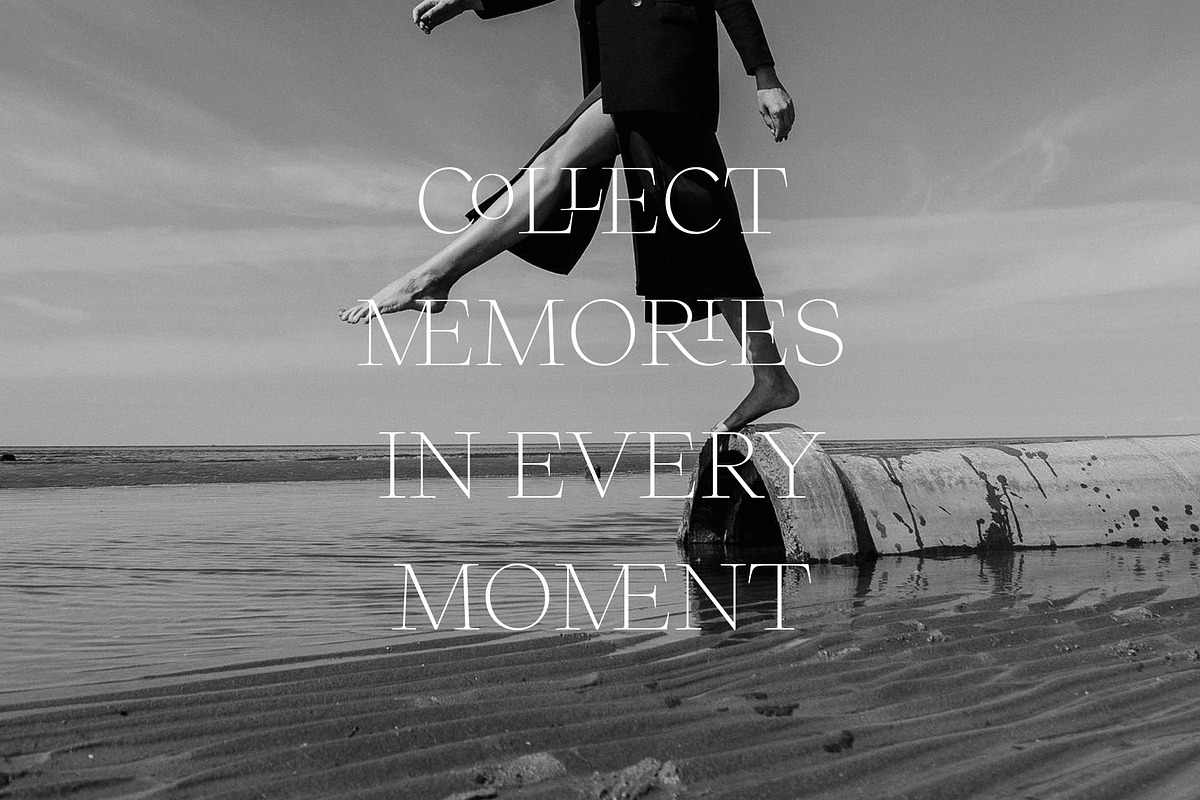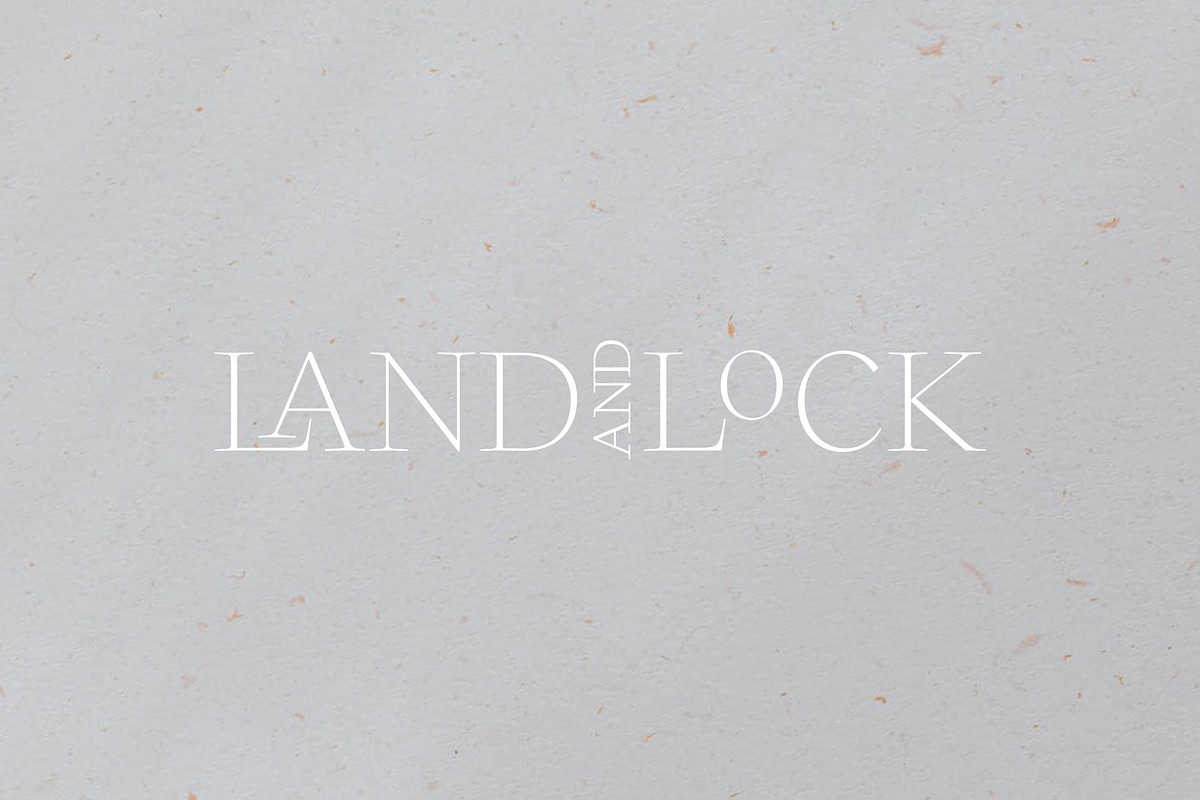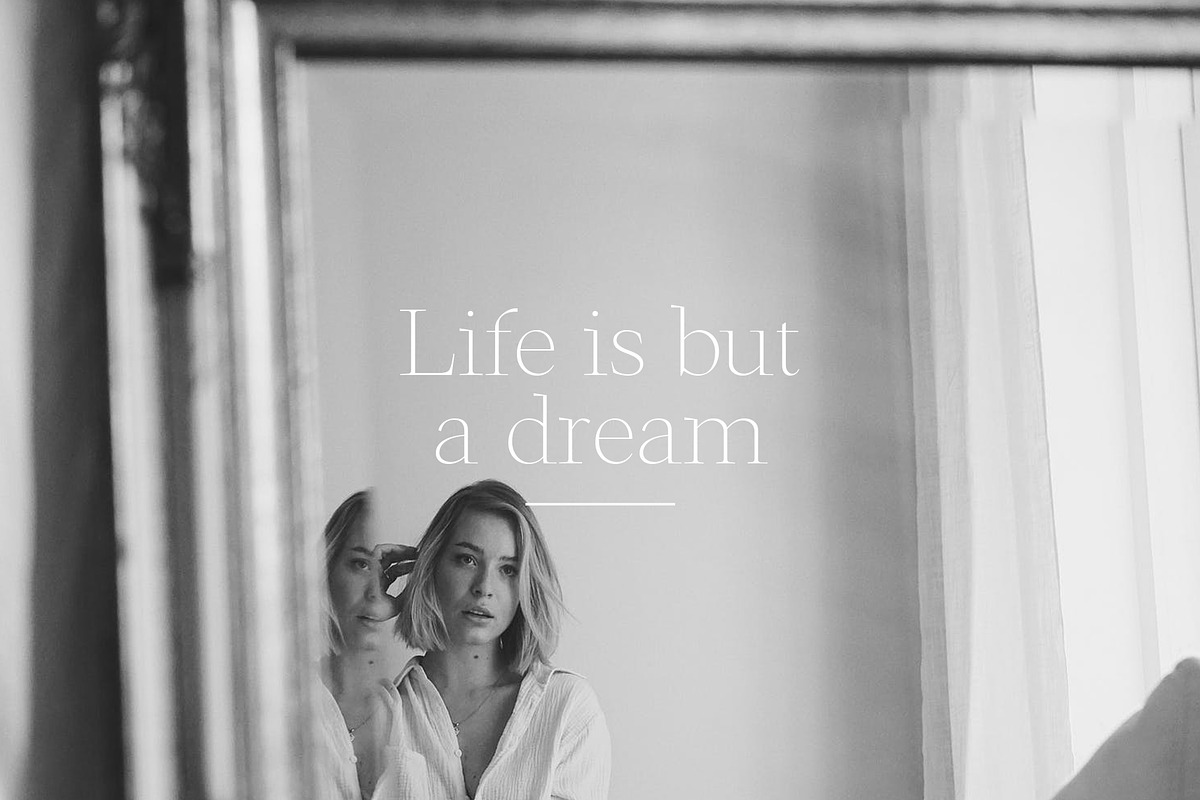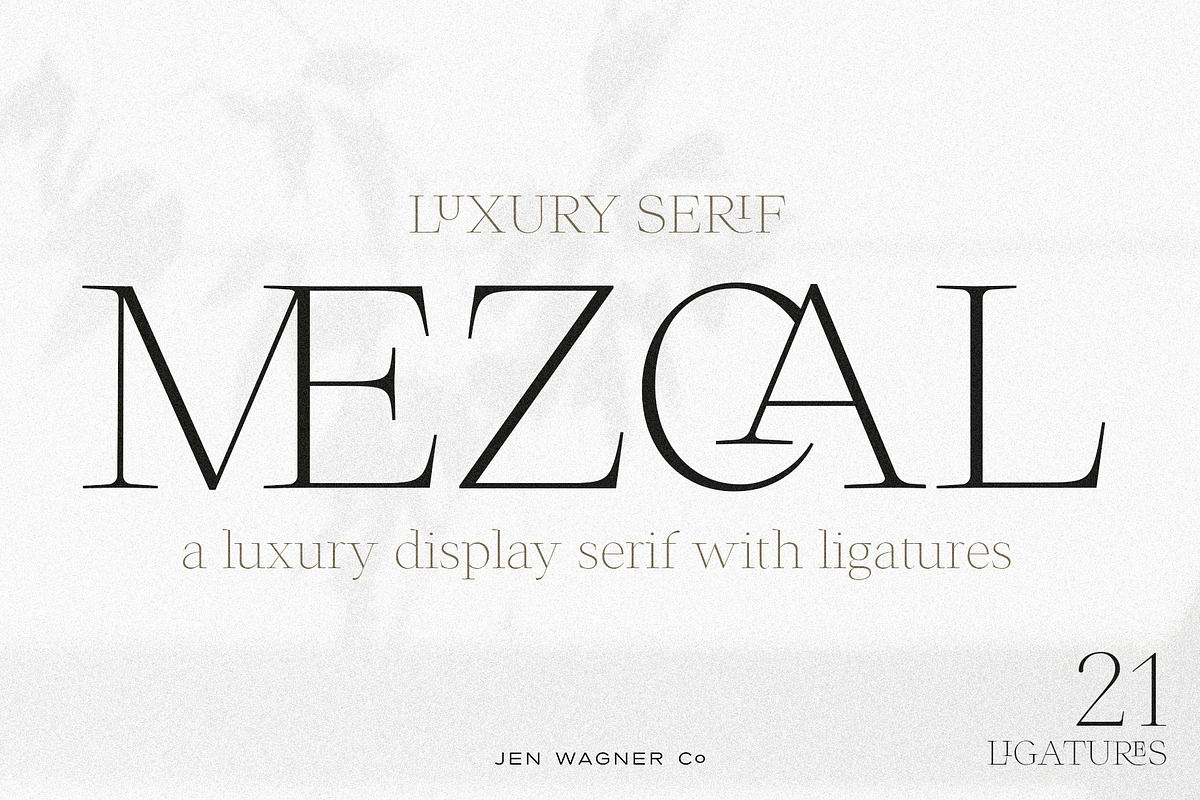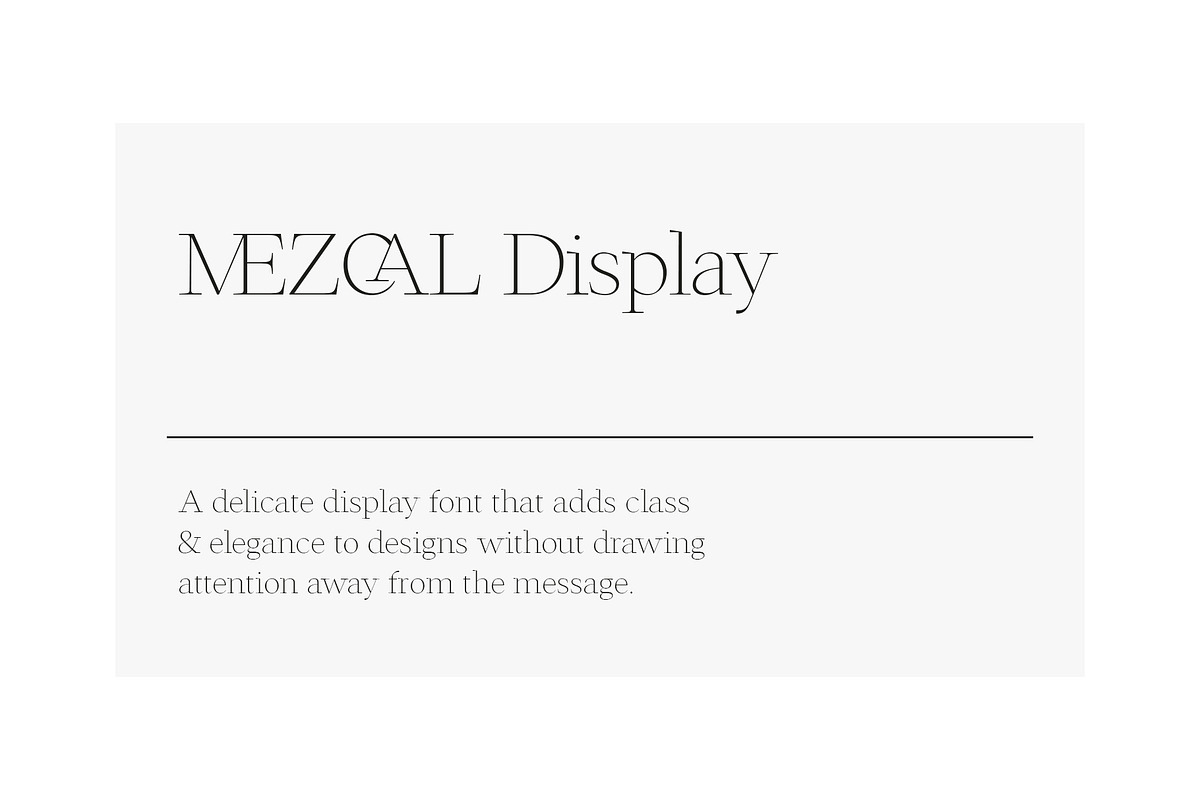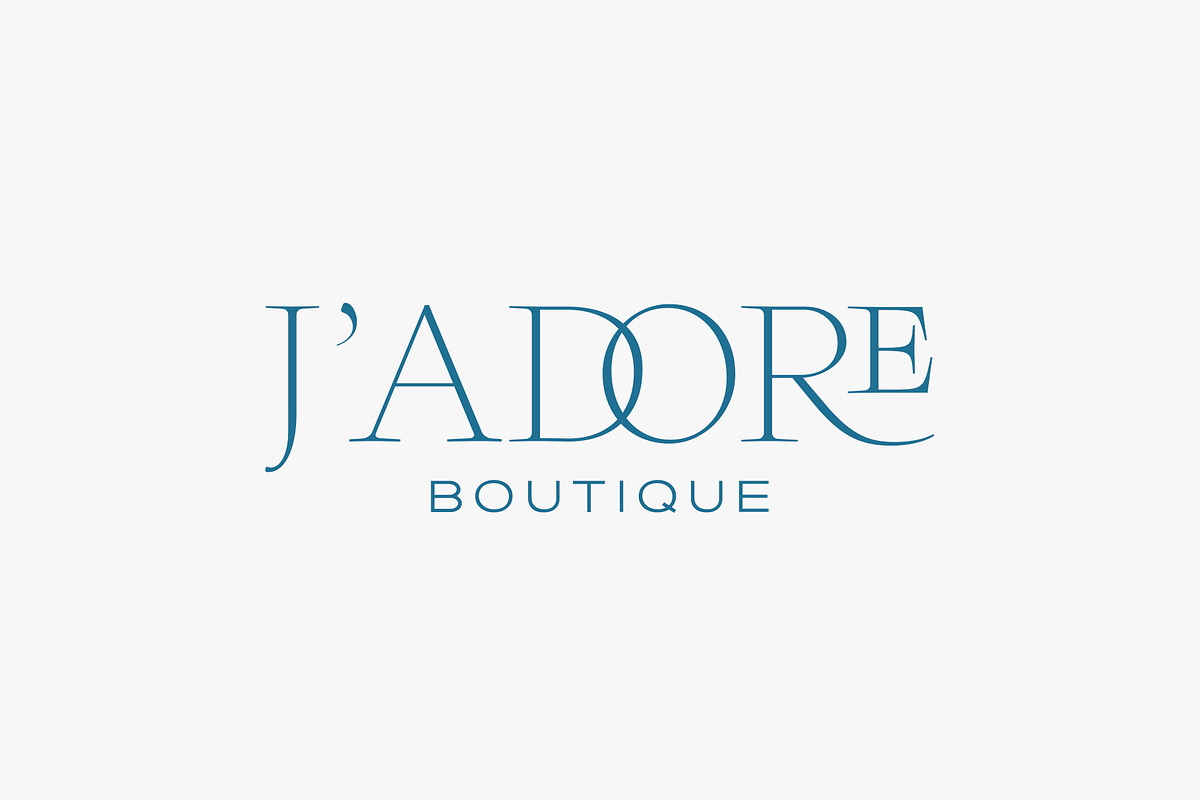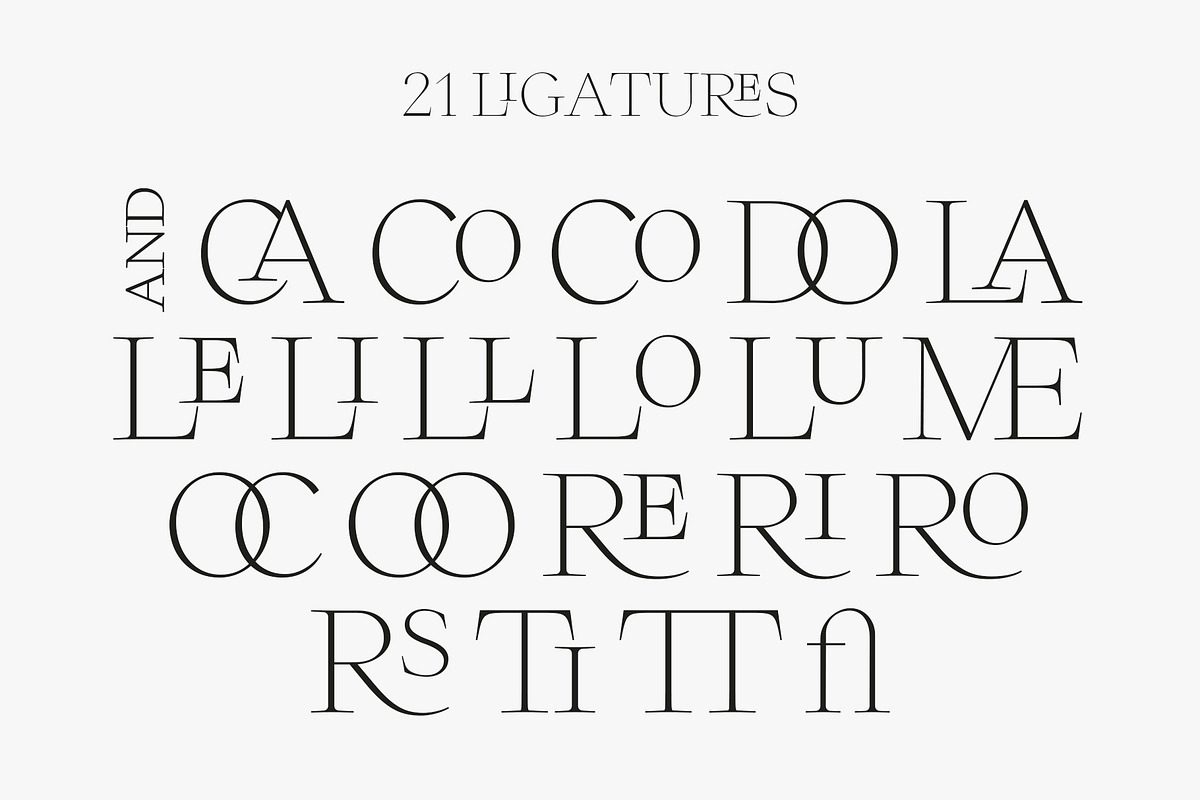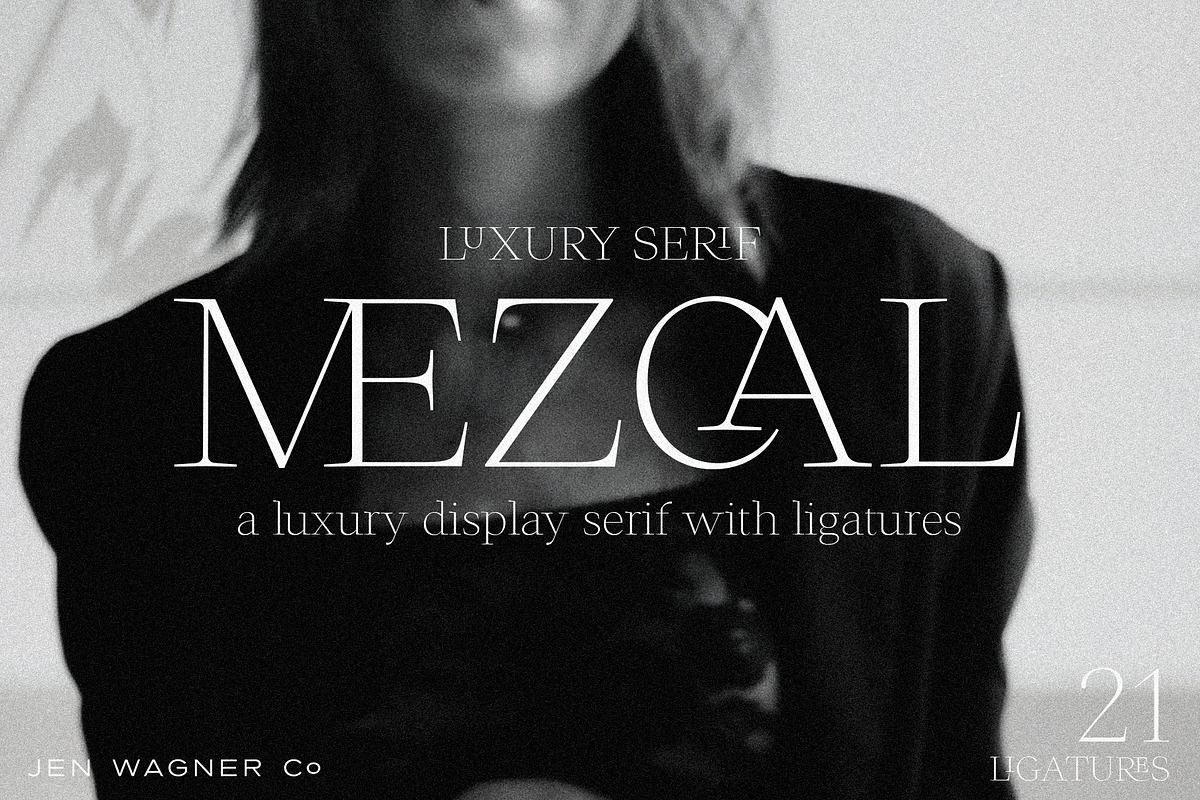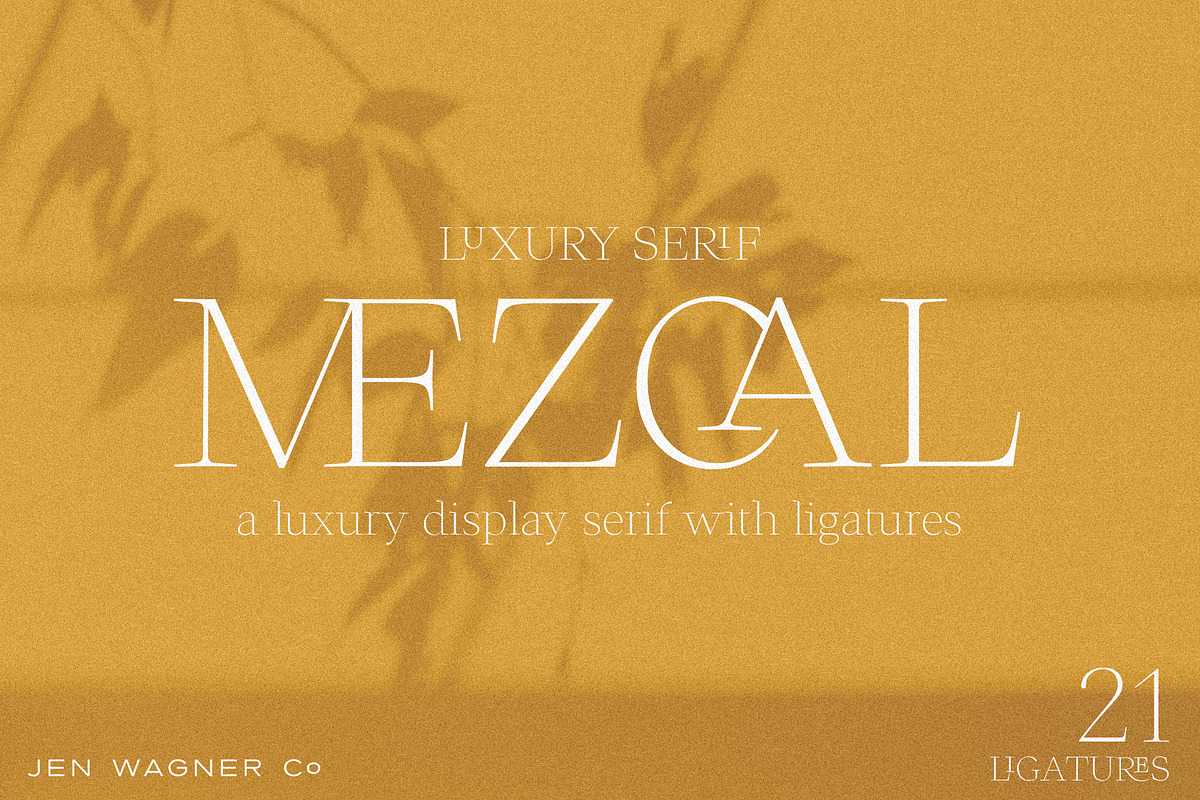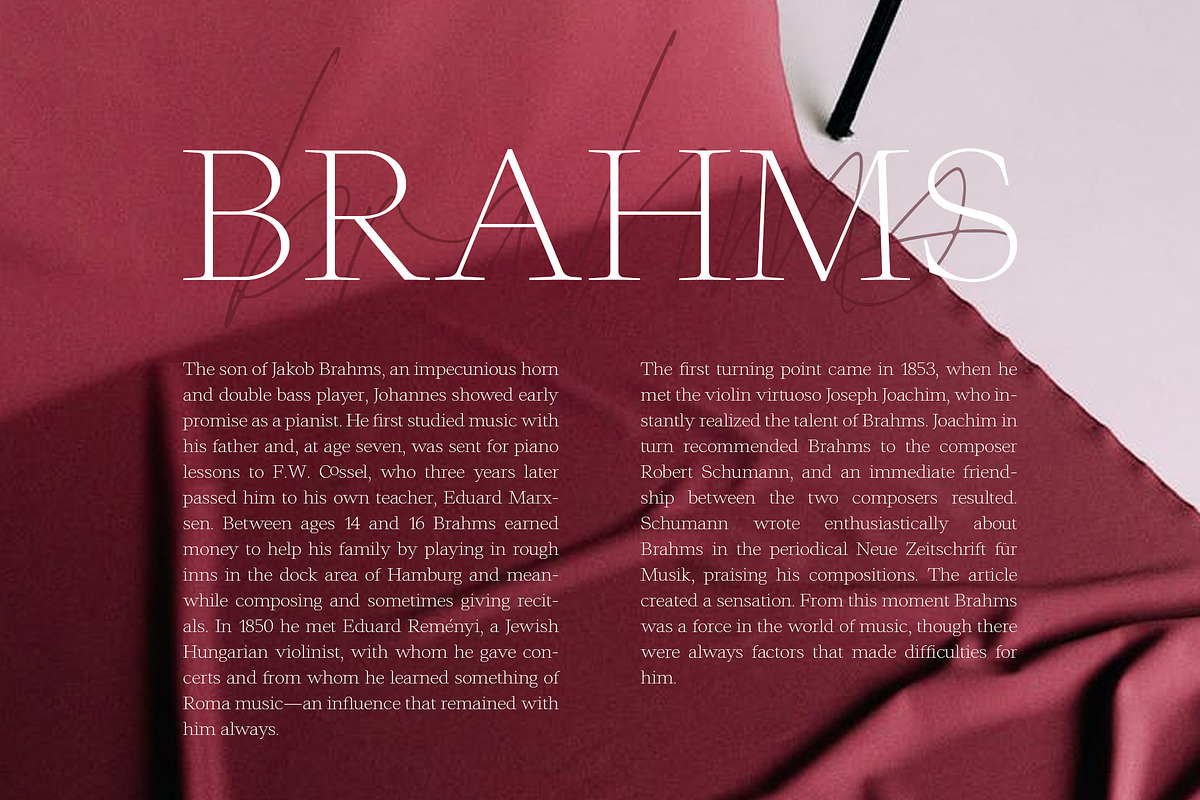
Mezcal | Luxury Ligature Serif
Mezcal is a new, stunning serif that gives you the look of a totally customized logo with special ligatures, with the flexibility to also create stunning and delicate body text.
This modern serif can turn a basic wordmark into a custom-looking logo in one click.
- Uppercase & lowercase, numbers, punctuation
- 21 common ligatures for extra customization
- Western & Central European language support
I LOVE this font!! It's absolutely stunning. I just want MORE from it! I wish there were more weights (this font can be hard to read in smaller sizes, so a bold version would be so useful) and I wish there was an italics set as well as an uppercase set without the ligatures. As it stands, I have to adjust the kerning in order to turn off the ligatures when I don't want them. This font is just SO beautiful, and perfect for making a quick, simple logo, but it's not as versatile as I wish it could be! And I've had trouble finding nice fonts that look similar enough to use beside it.